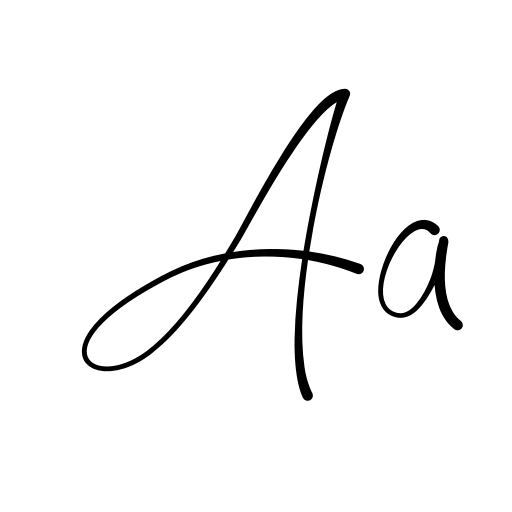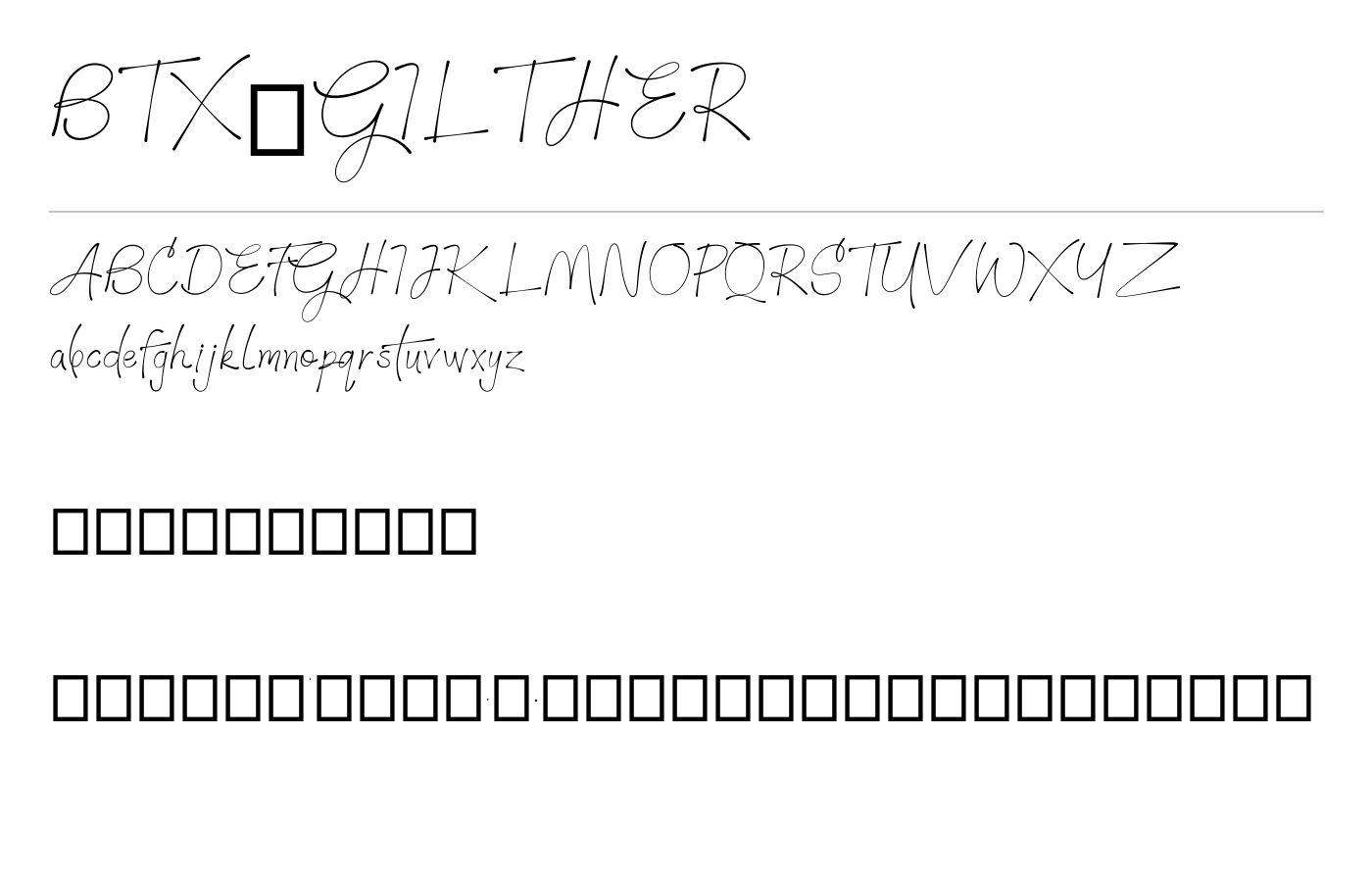
BTX-GILTHER is an elegant, thin script font that mimics delicate, handwritten calligraphy with its high, narrow x-height and finely tapered strokes. Its letterforms flow with a graceful, airy feel, making it ideal for creative and sophisticated designs such as invitations, branding, or editorial accents that require a personal, artistic touch. This font shines in contexts where a light, stylish, and refined look is desired to convey creativity and elegance.
BTX-GILTHER Font